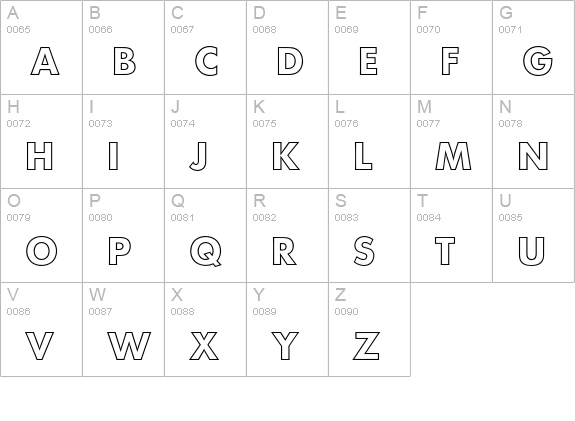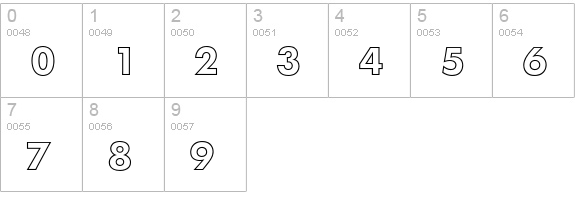
Futura Bold Outline is a strong, high-contrast variant in the Futura typeface family \xE2\x80\x94 well suited to headlines, attention-grabbing titles, and strong calls-to-action.
Futura Bold Outline font is a modern and stylish typeface that adds a touch of sophistication to any design project. Its sleek lines and bold appearance make it perfect for headlines, titles, and branding materials. The outline version of the Futura Bold font provides a striking and eye-catching look that is sure to grab attention. What's even better is that this fantastic font is available for free download at FontsMarket.com. Whether you're working on a poster, logo, website, or any other creative project, Futura Bold Outline font is a versatile choice that will elevate your design to the next level. Don't miss out on the opportunity to enhance your work with this stunning typeface - download it today and unleash your creativity!